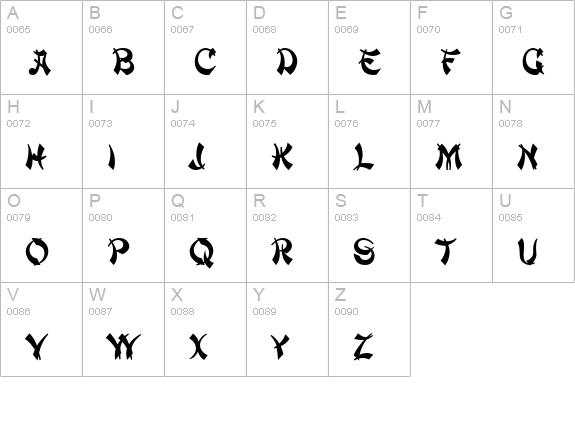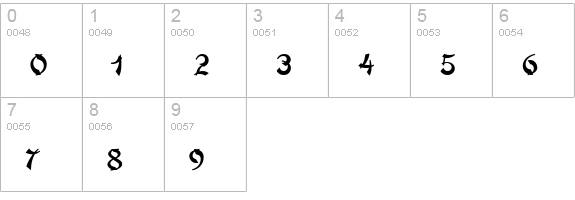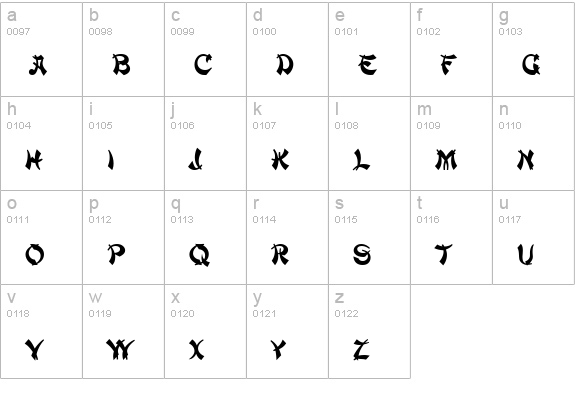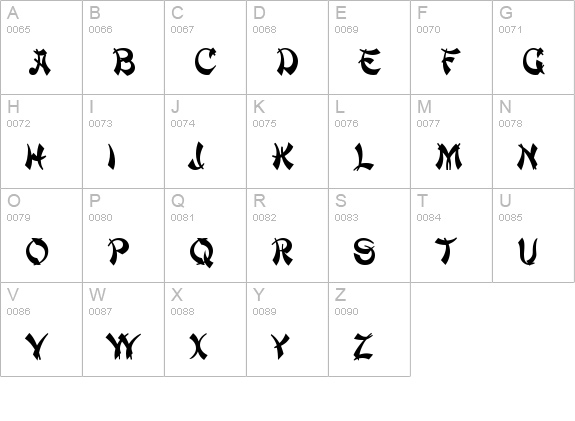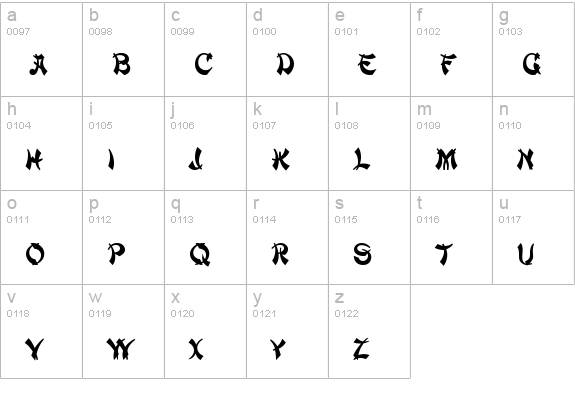
MandarinSCD Font Details
Introducing MandarinSCD, a beautiful and versatile font that will add a touch of elegance to your designs. With its graceful curves and stylish letterforms, MandarinSCD is perfect for a wide range of projects, from invitations and wedding stationery to logos and branding. What sets MandarinSCD apart is not only its stunning aesthetics but also its accessibility. This font is available for free download at FontsMarket.com, allowing you to bring this exquisite typeface into your creations without breaking the bank. Whether you're a professional designer or a DIY enthusiast, MandarinSCD offers an opportunity to elevate your designs with a premium-quality font that won't cost you a penny. MandarinSCD's versatility is evident in its use across various design mediums. Its clean and legible characters make it ideal for both print and digital applications, ensuring that your message is conveyed with clarity and sophistication. This font also features a wide range of glyphs and ligatures, giving you the freedom to experiment and customize your designs to perfection. The beauty of MandarinSCD lies not only in its visual appeal but also in its ease of use. This font is compatible with all major design software and can be effortlessly integrated into your workflow. Whether you're designing a poster, creating a website, or crafting a social media post, MandarinSCD will effortlessly adapt to your needs, adding a touch of elegance and refinement to every project. Don't miss out on the opportunity to enhance your designs with MandarinSCD. Download this stunning font for free at FontsMarket.com today and unleash your creativity. With MandarinSCD, you can create beautiful and professional designs without breaking the bank. It's time to elevate your design game with this freely available font.